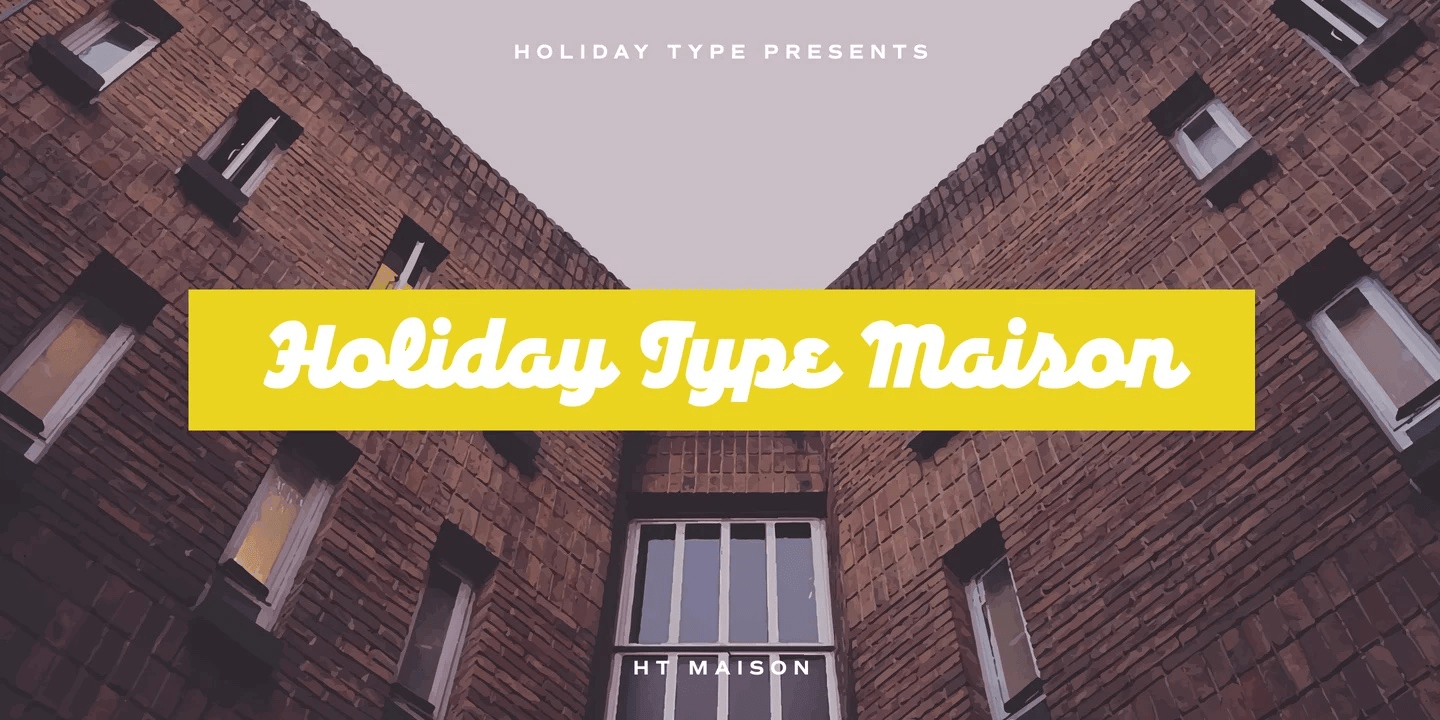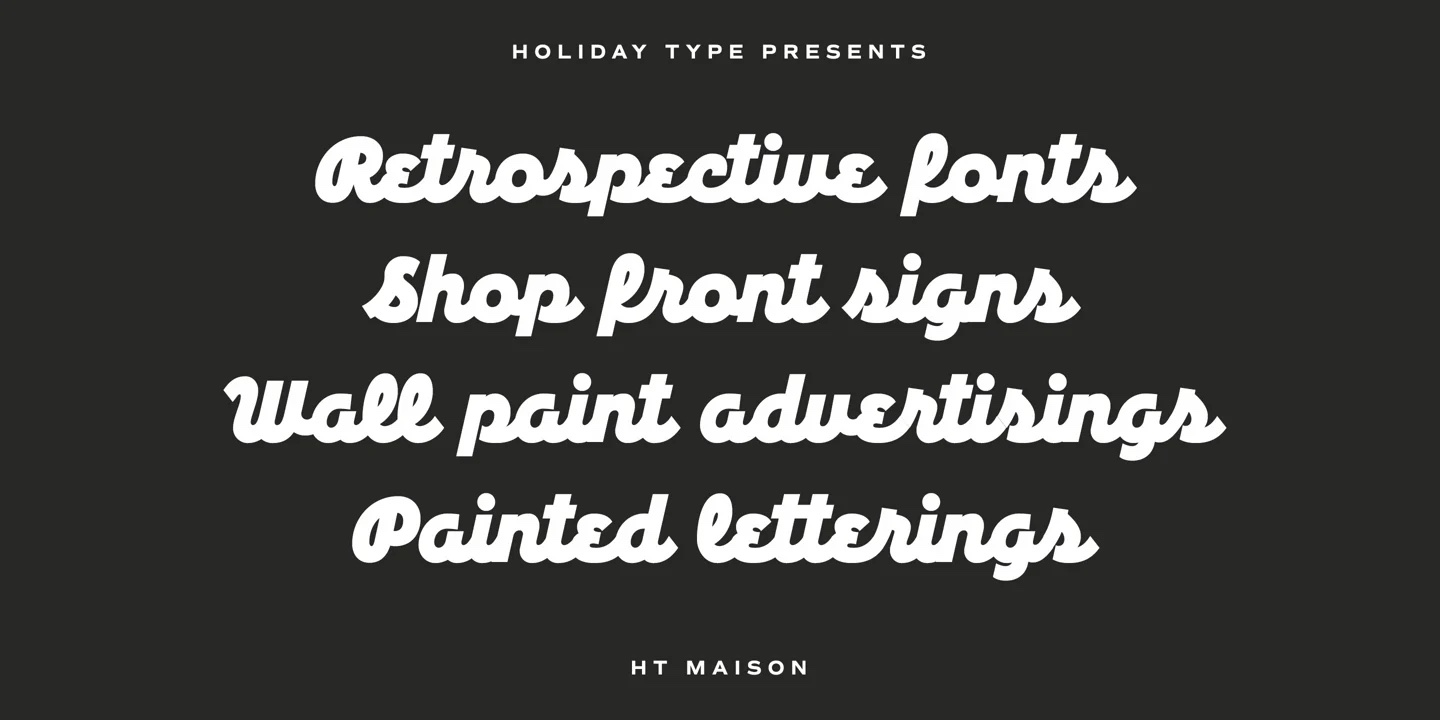
HomeFont BrosArt Deco (1910-1935)HT Maison Art Deco (1910-1935)Retro (1936-1965)Scripts: CasualScripts: FormalGroovy (1966-1978) HT Maison FacebookXPinterestWhatsApp 1 of 2 About HT Maison Retro script based on shopfront lettering, wallpaint advertisements in Italy around 1950s.  DOWNLOAD NOW People also explored Petersburg Font Heirley Script Font Smart Mom Font Gedabol Font Better Friday Font Mikélis Font Quantum Font Rockstar Niko Curt Font 272 0 TagsHT Maison Font Previous articleChicken KingNext articleMichel Elisha Script LEAVE A REPLY Cancel reply Comment: Please enter your comment! Name:* Please enter your name here Email:* You have entered an incorrect email address! Please enter your email address here Website: Save my name, email, and website in this browser for the next time I comment. Personal Use Free Aelten Personal Use Free Read more about this font Special Day Personal Use Free Read more about this font Kaylafiz Personal Use Free Read more about this font Sybil Green Personal Use Free Read more about this font BLOG The 10 Best Handwriting Fonts to Add Personality to Your Designs 10 of the Best Handwriting Fonts for Adding Personality to Your Designs There will undoubtedly be no other better choice than handwriting fonts to give... Top 7 Google Fonts Alternatives for Faster and Privacy-Friendly Web Design (2025) Exploring Font Trends Using Fonts in Digital Marketing: Tips to Strengthen Your Brand Identity